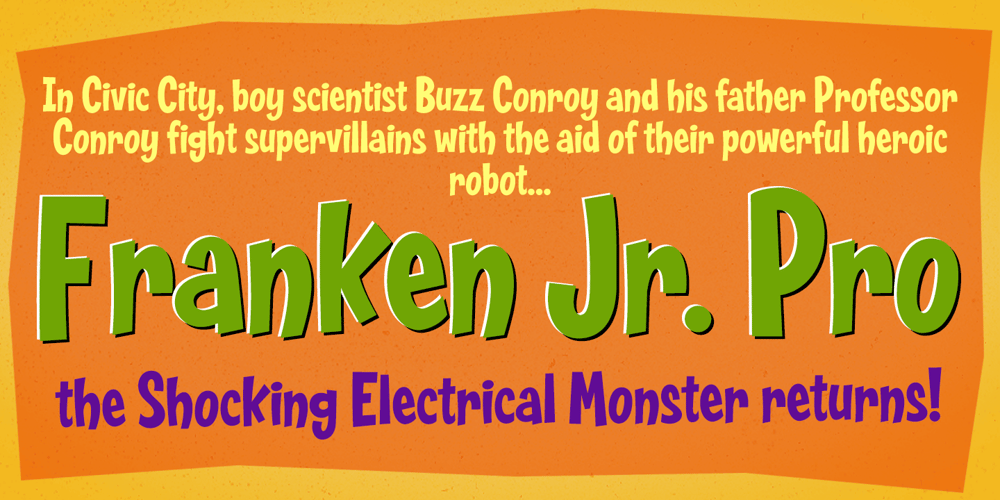
Franken Jr AOE Pro
Franken Jr AOE Pro font
Franken Jr AOE Pro Font Family was designed by Brian J. Bonislawsky and published by Astigmatic. Franken Jr AOE Pro contains 1 styles and family package options. Franken Jr. Pro was inspired by the title screen from the 1966 Hanna Barbera cartoon titled, “Frankenstein Jr.” The original titling had a unique presence to it, overflowing with charm and offbeat personality. The addition of a Small Caps set, Unlimited Fractionals, Superiors & Inferiors, and Ordinals gave the a bit more serious, but not too serious) titling stance to the Franken Jr. Pro typestyle. Franken Jr. Pro truly embodies the comic lettering of its time, and gives designs a lively retro spark.